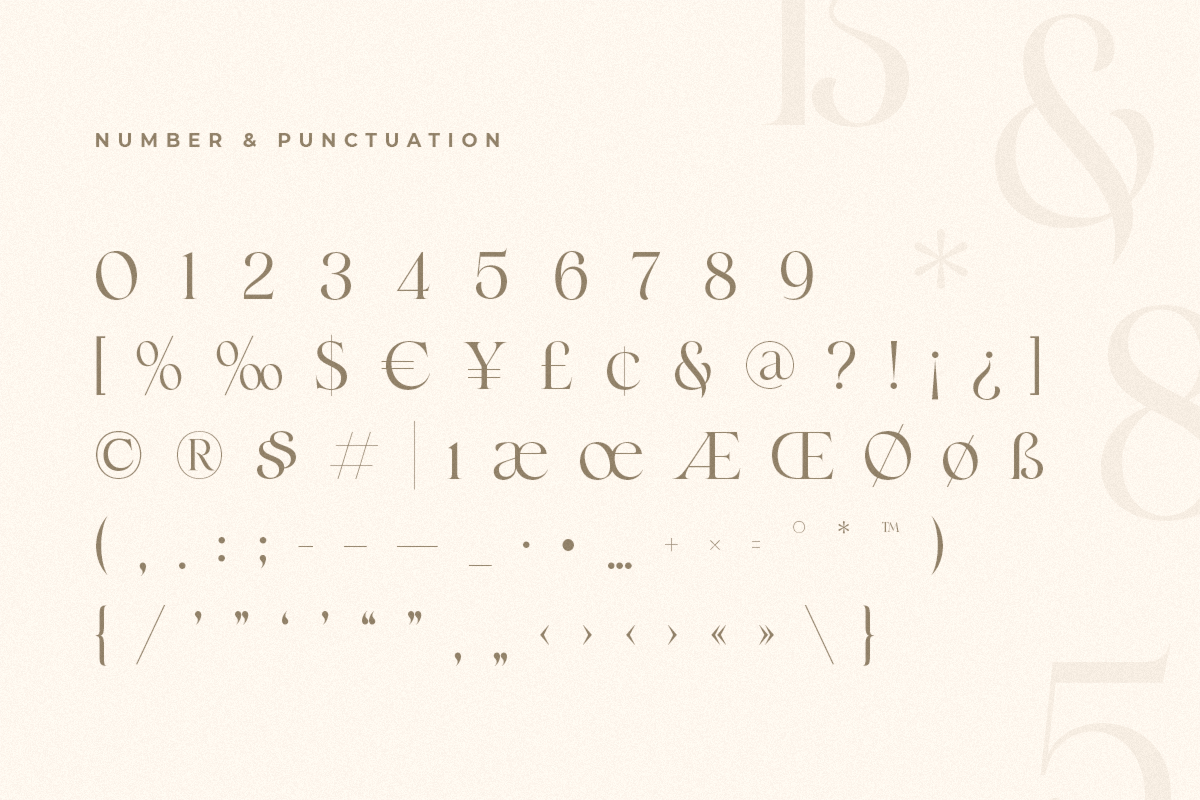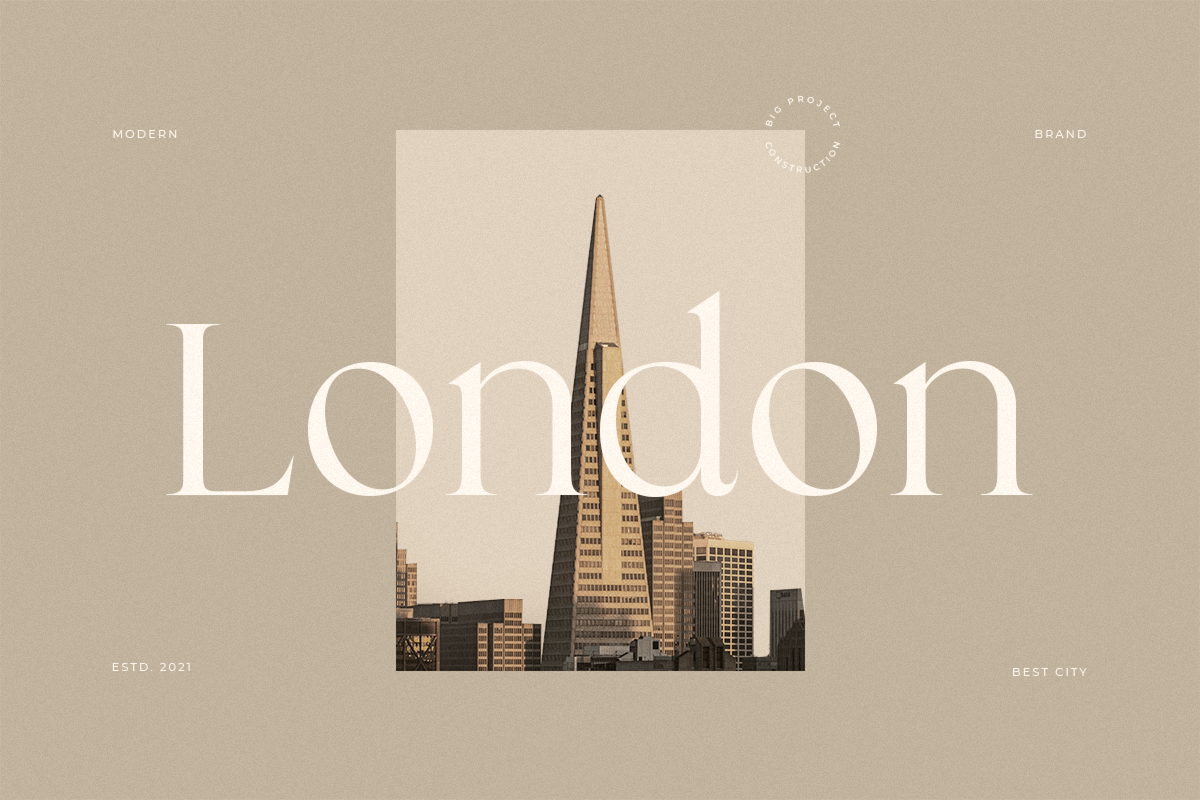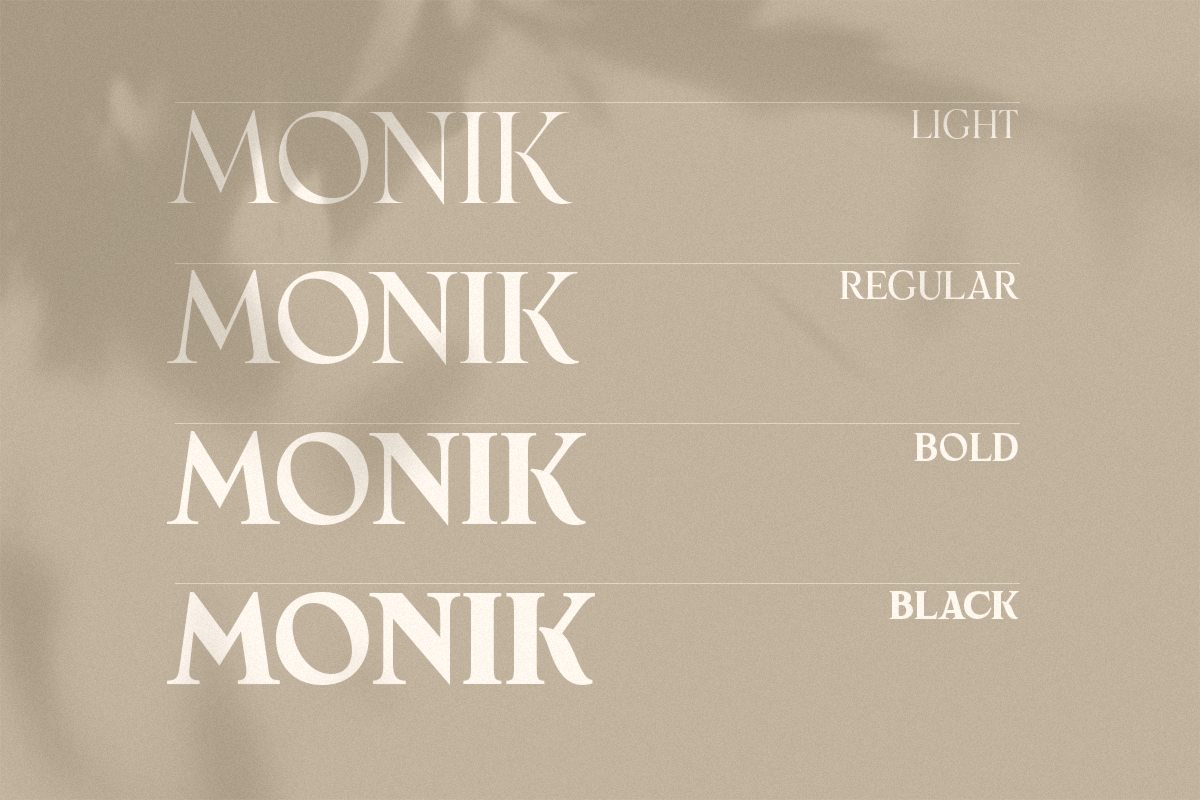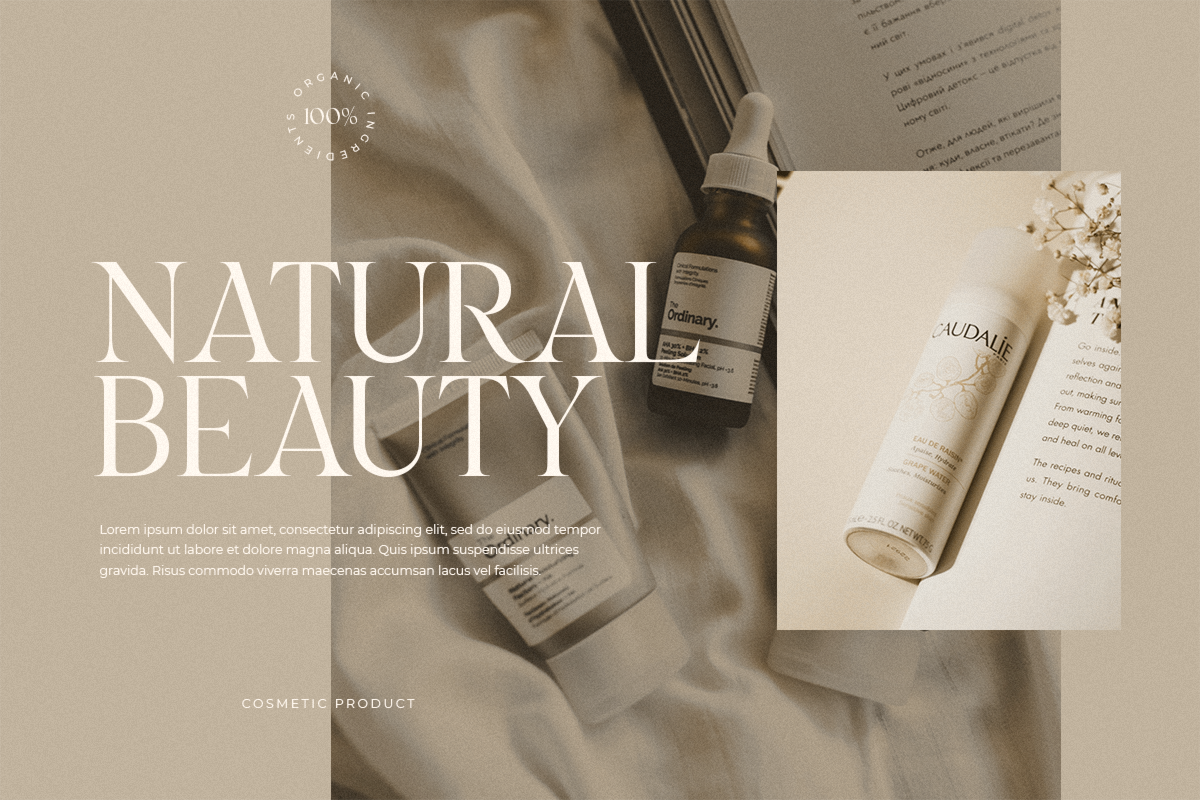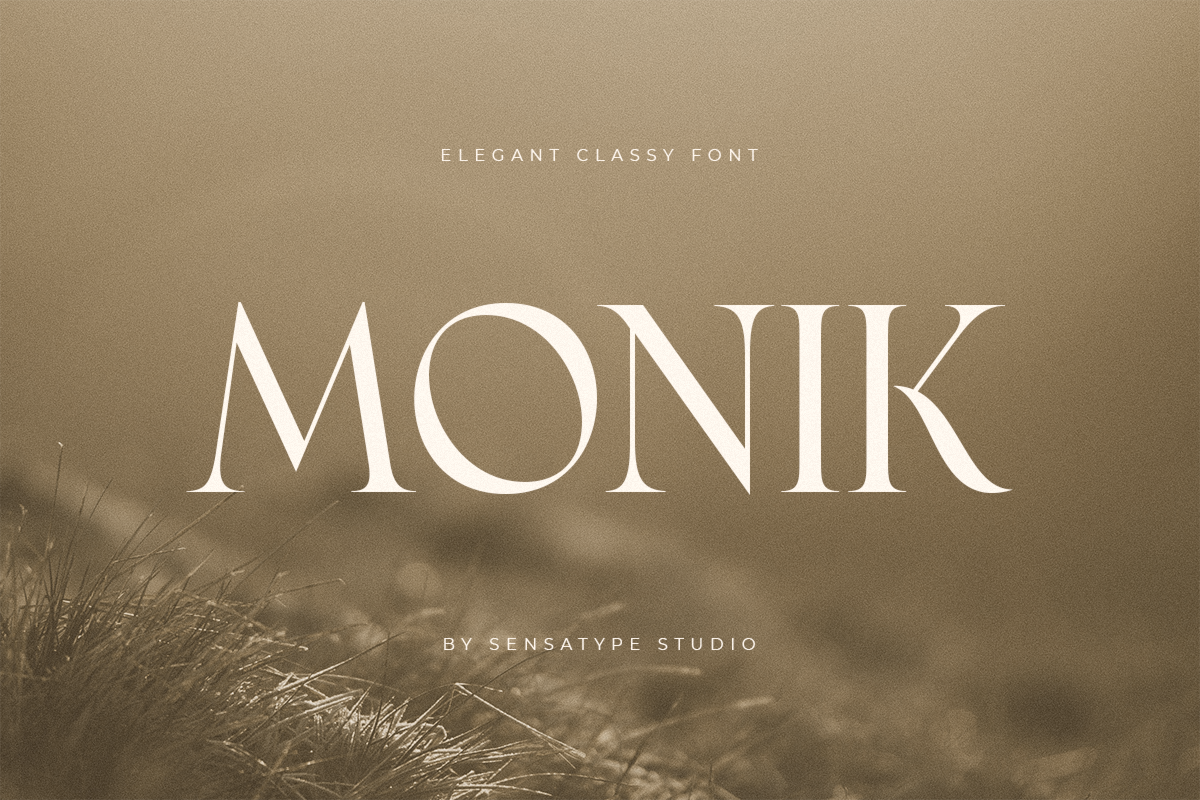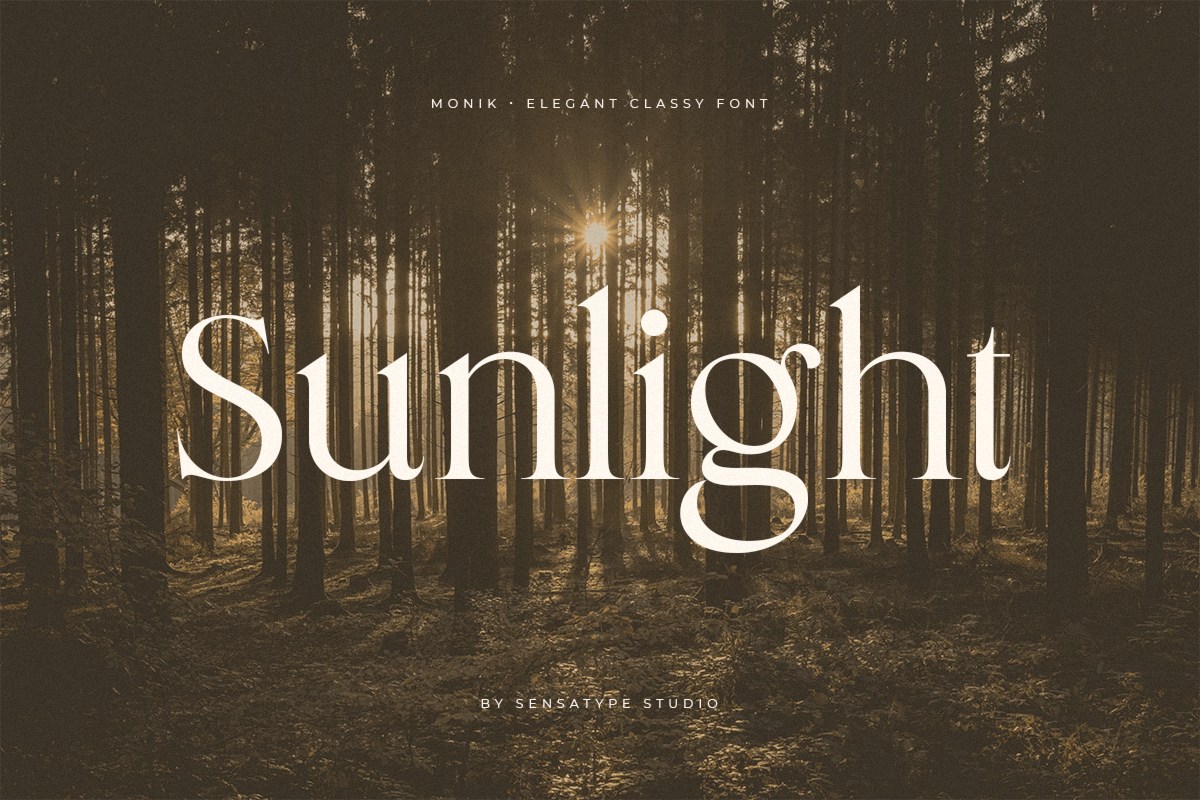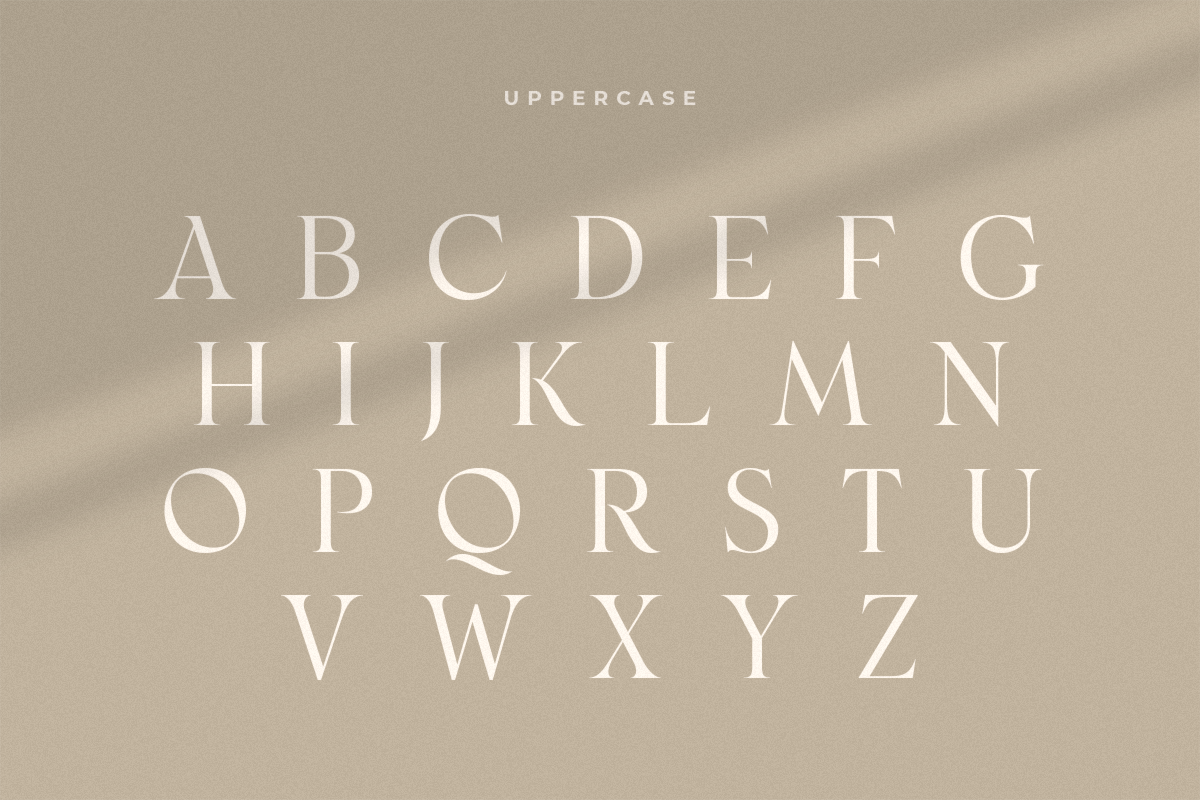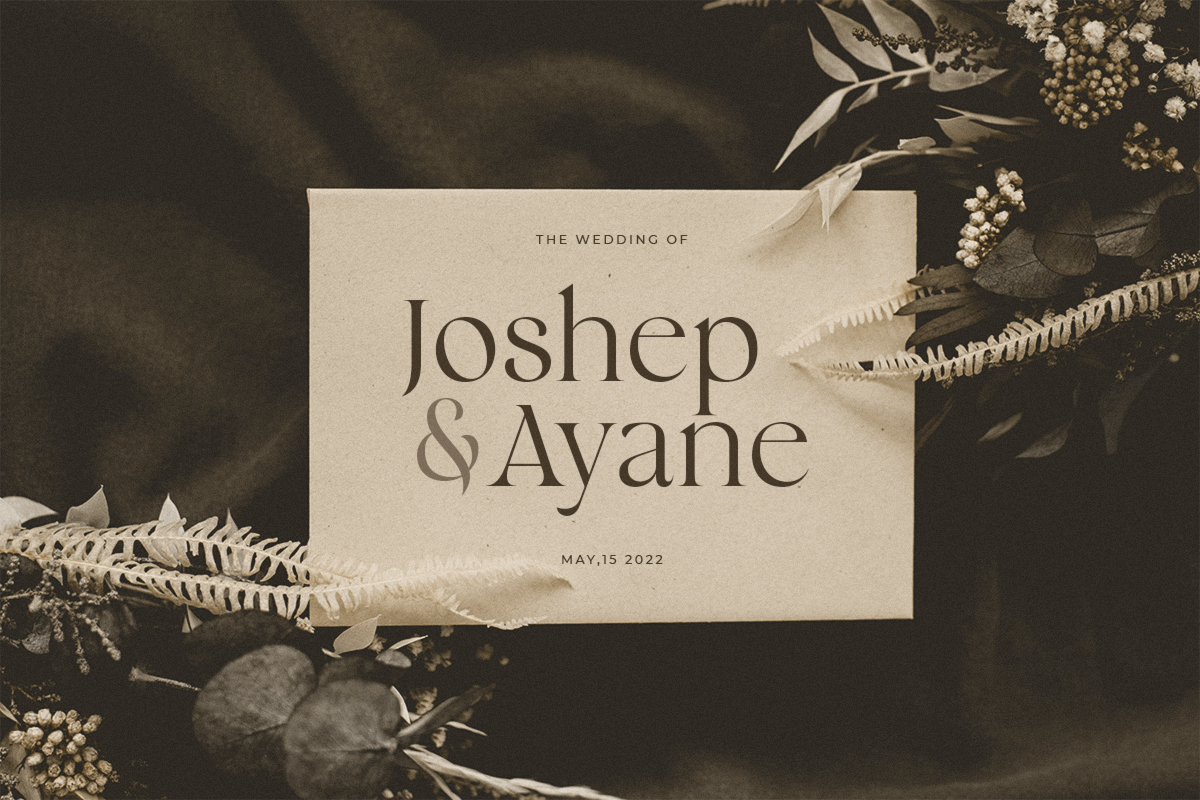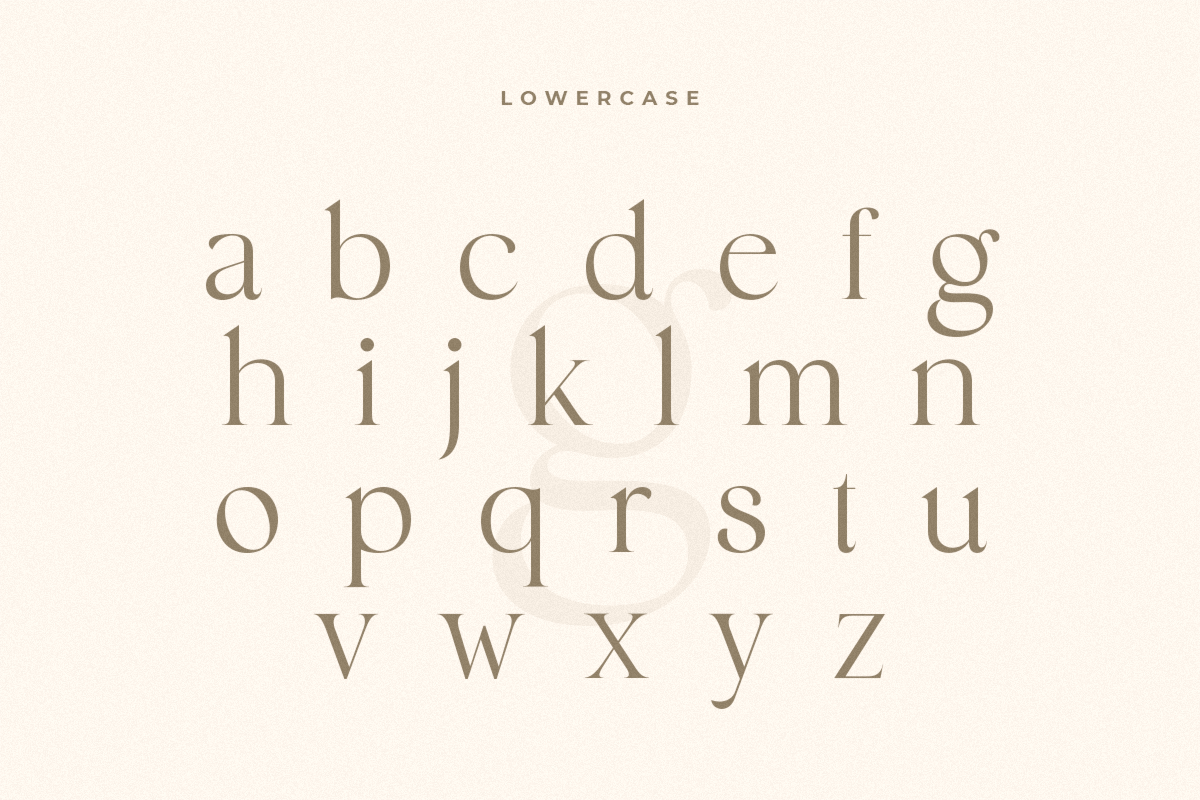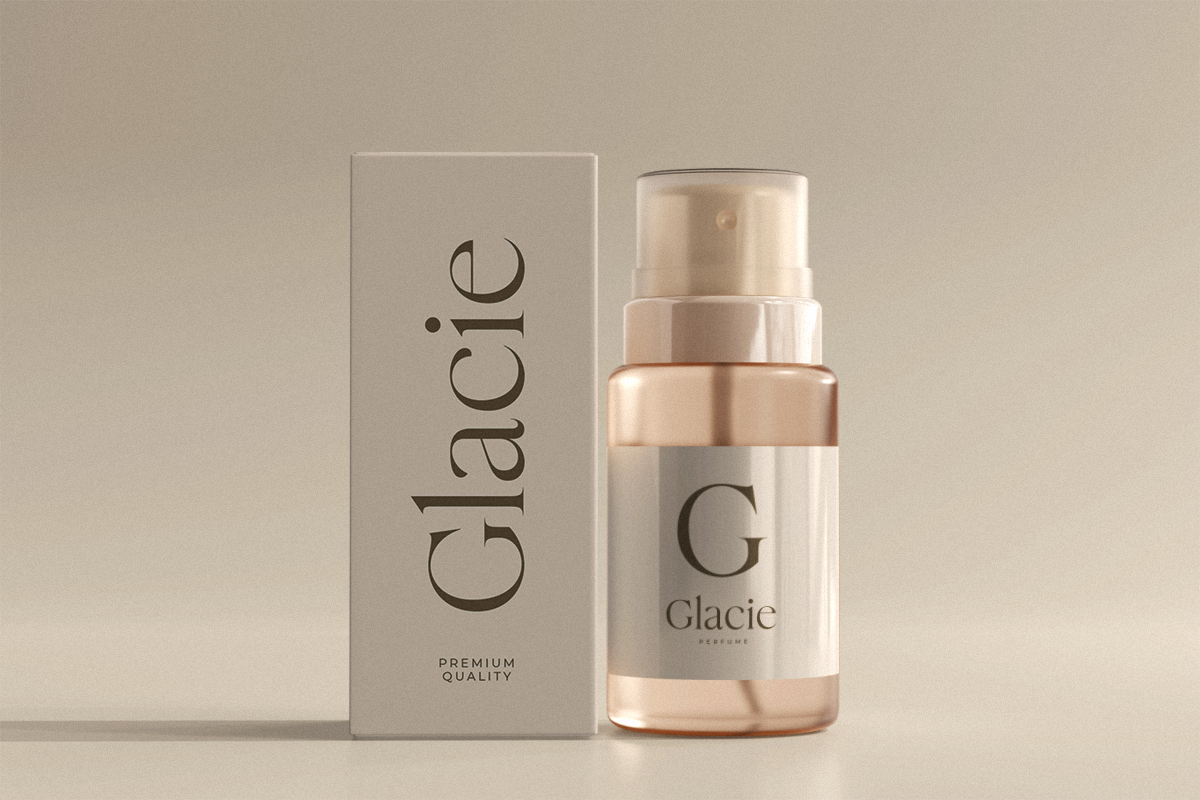
Monik - Elegant Classy Font
MONIK is a A New Elegant Classy Serif Font
A serif that we created special for elegant branding needs, with extra ligature and alternates in unique shape will be ready to add value of your brand. It so nice to leverage designer or product owner that need solutions to make their design look more classy and modern.
MONIK serif font ready with:
Ready 3 Weights (Light, Regular, and Bold)
Preview as a inspirations that you can do with MONIK font
Ready with Lowercase and Uppercase characters